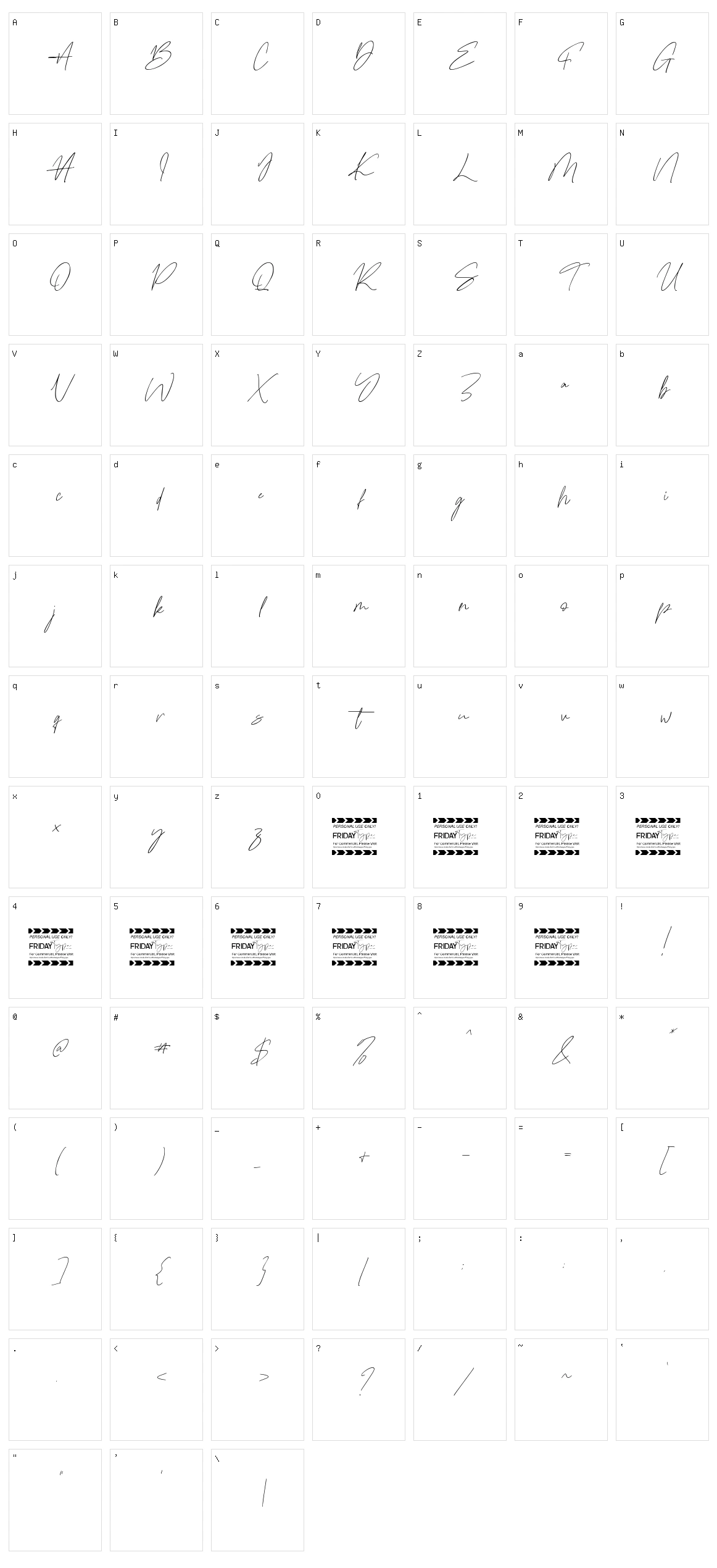
The free font Gentrice Story is carefully designed by Fridaytype, showcasing a thoughtful balance of creativity and usability and falls under the Script font style. When you download the ZIP file, it contains only 87.63 KB of font files, making it lightweight and quick to download. Please review the license details below to understand permitted usage and distribution rights. If license information is not available, we recommend using this font for personal projects only or contacting the author directly for commercial usage permissions.